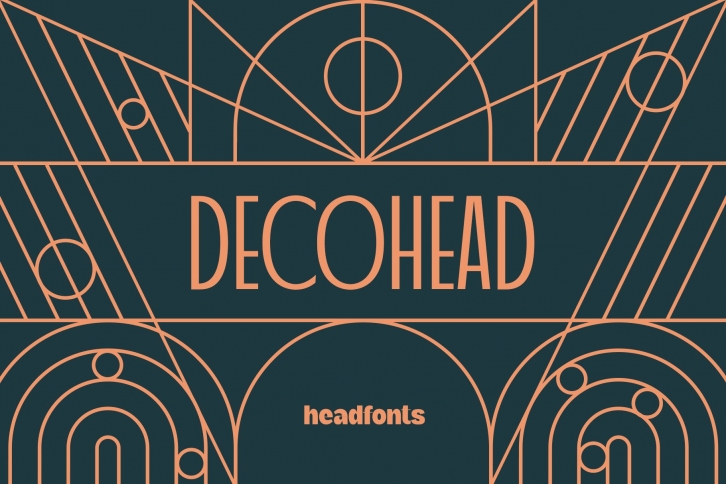
Decohead Art Deco is a trendy and unique font with an authentic style. It was designed by Headfonts and it's a great choice for creative people who need such a font. It was released on May 28, 2021 and the file size is 17.29 MB. Decohead Art Deco will add an organic vibe to any design idea!